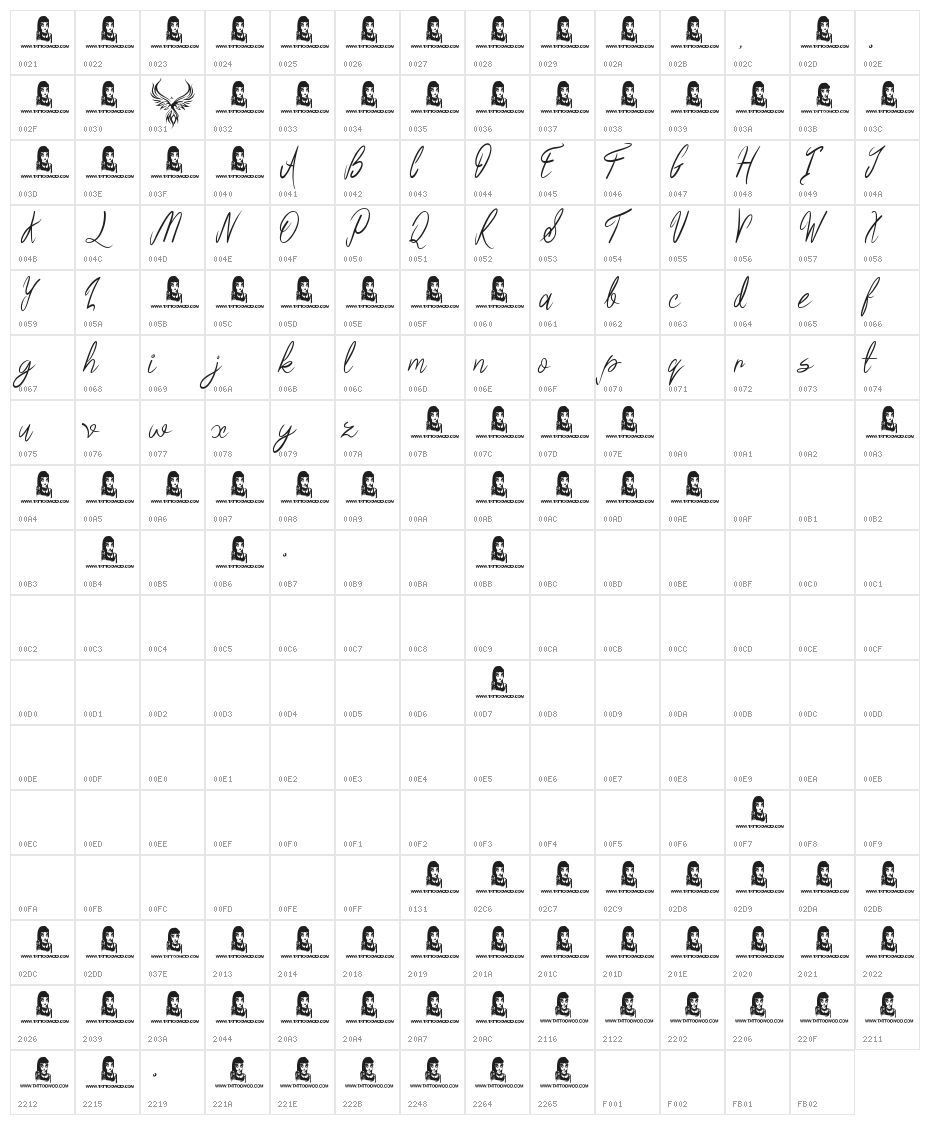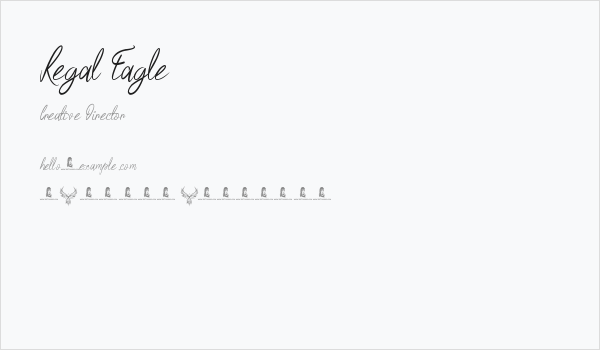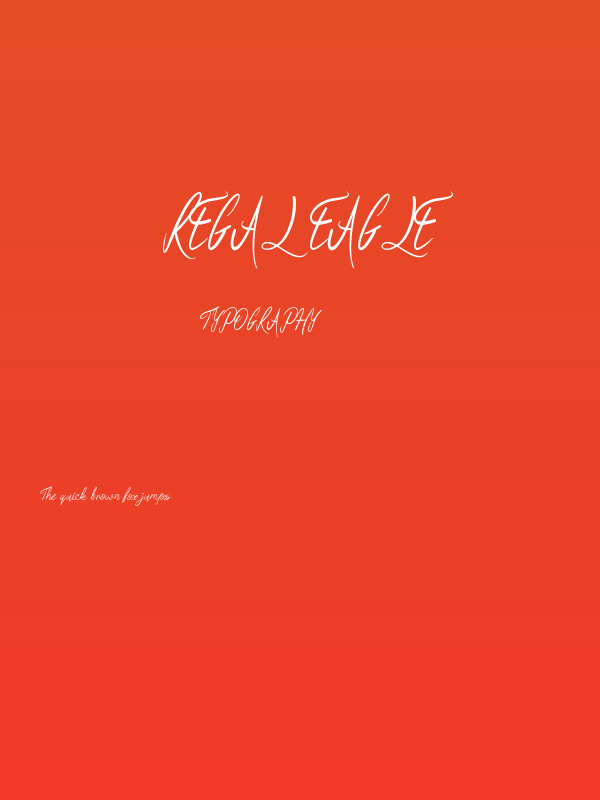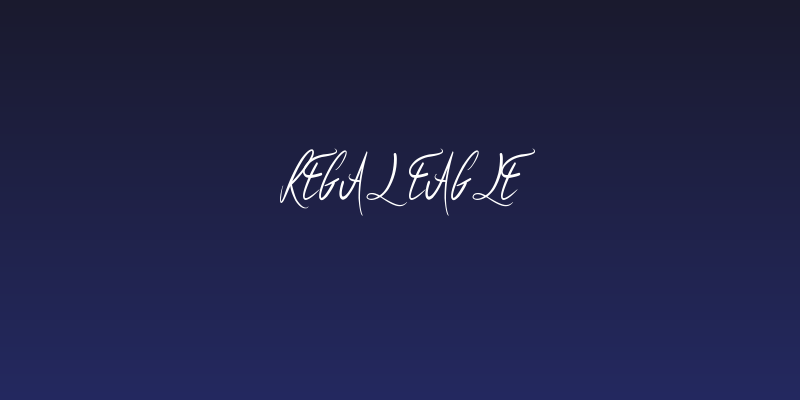
Regal Eagle Font
Regal Eagle Description
This font exudes a sense of elegance and fluidity, characterized by its script style that mimics the flow of cursive handwriting. The letters are interconnected, creating a seamless and continuous look. The strokes are smooth and slightly varied in thickness, adding a touch of sophistication. The uppercase letters are particularly ornate, with flourishes that enhance their decorative appeal. The lowercase letters maintain a consistent style, ensuring readability while retaining the font's artistic flair. This font is ideal for projects that require a personal and elegant touch, such as invitations, greeting cards, and branding materials.